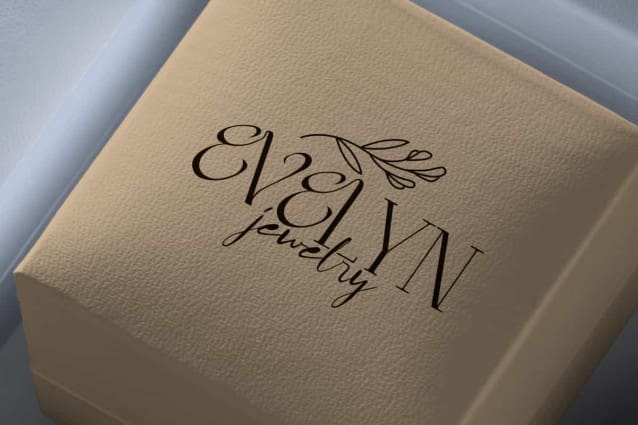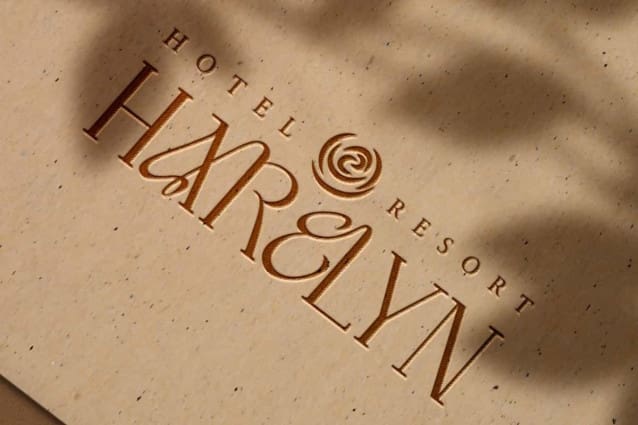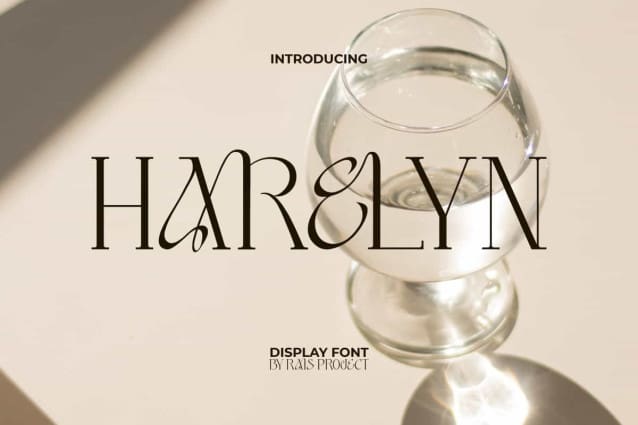
Harelyn Font
Harelyn Font is an elegant beautiful serif display font. This font has thin and unique wave lines like flower petals. It will be good for any designs, such as brand image, cover, custom design, flyer, invitation, label, magazine, marketing material, menu, poster, product packaging, quotes, signage, stationery, website page, and more!
Harelyn Font including a complete set of basic Uppercase and Lowercase characters, Numerals, and large range of Punctuation. This font also include Ligature characters that will be suitable for various industries, such as accessories, advertising, beauty product, cafe, crafting, event or wedding organizer, fashion, home furniture, jewelry, marketing, movie, printing, publishing, real estate, restaurant, spa salon, etc.